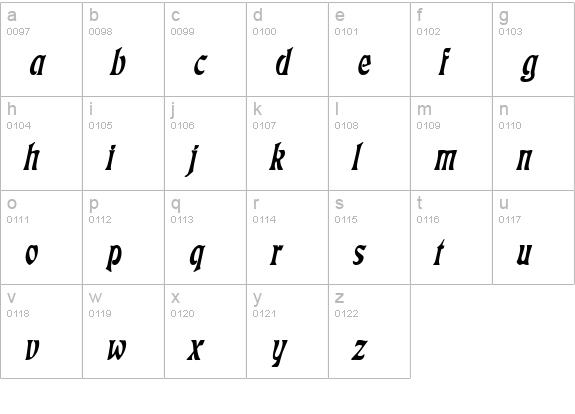
Freedom Condensed Italic Font Details
Freedom Condensed Italic is a distinctive, condensed-width, italic variant in the Freedom typeface family \xE2\x80\x94 well suited to design and typography projects.
Introducing Freedom Condensed Italic font – a versatile and elegant typeface that exudes a sense of freedom and creativity. The sleek and modern design of this font is perfect for a wide range of projects, from branding to editorial design. The italic style adds a touch of sophistication and flair to your text, making it stand out with a unique and dynamic look. What makes Freedom Condensed Italic font truly special is that it is available for free download at FontsMarket.com. This means that you can easily access this high-quality typeface without any cost, allowing you to unleash your creativity without any limitations. Whether you are a designer, writer, or business owner looking to elevate your visual content, Freedom Condensed Italic font is the perfect choice for adding a touch of elegance and freedom to your projects. Download it today and let your creativity soar!